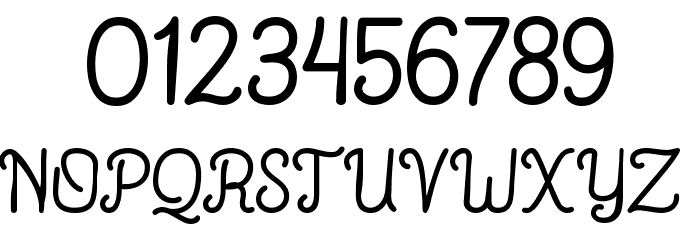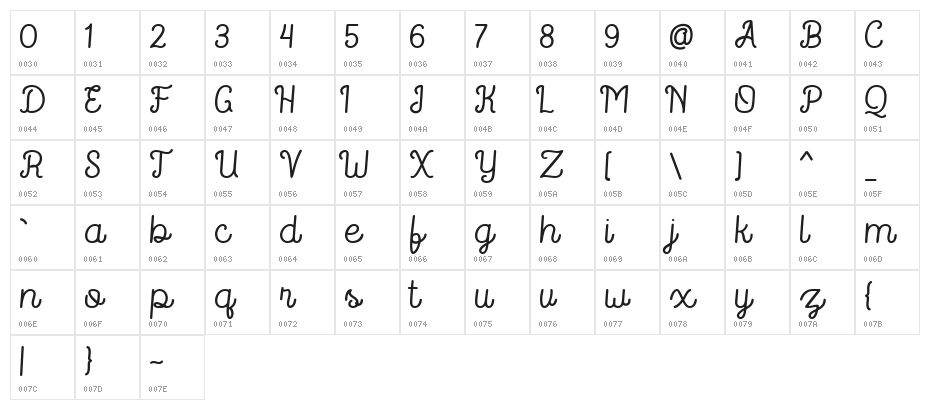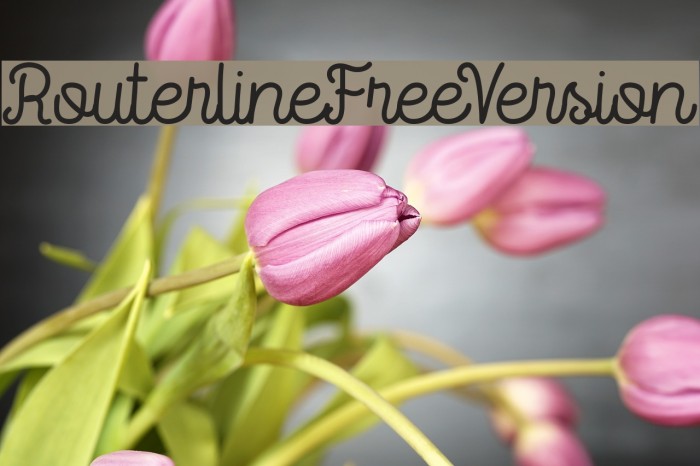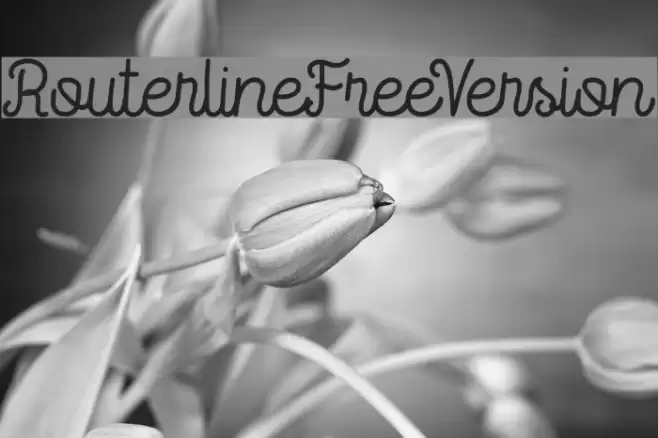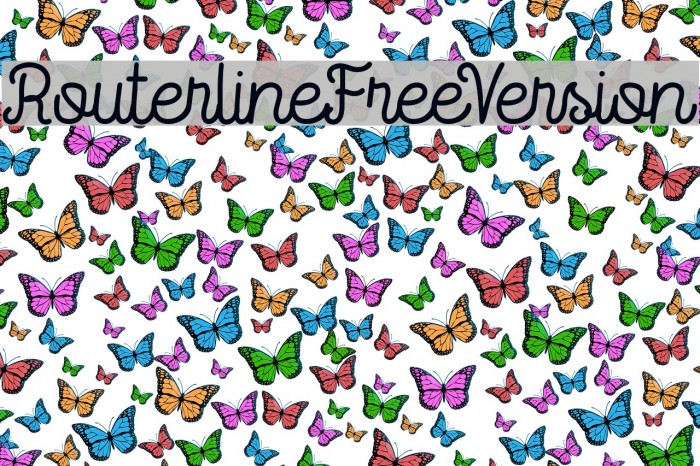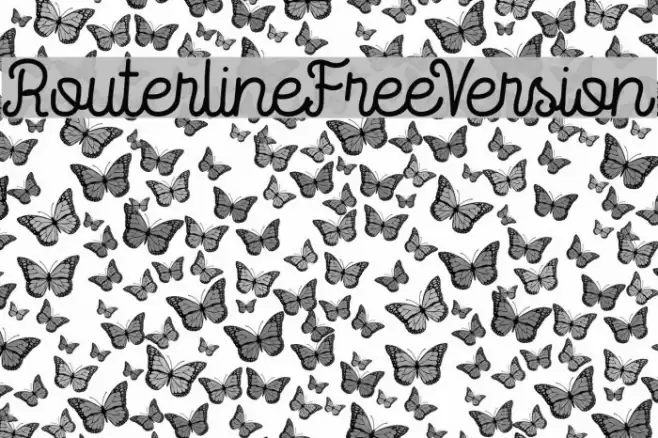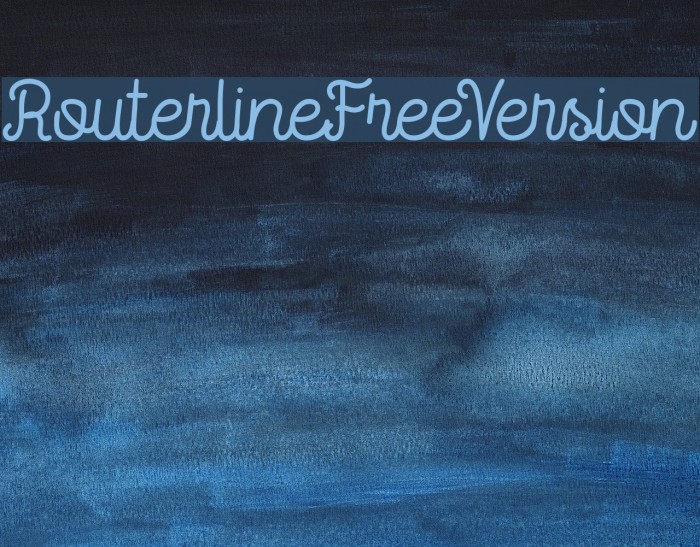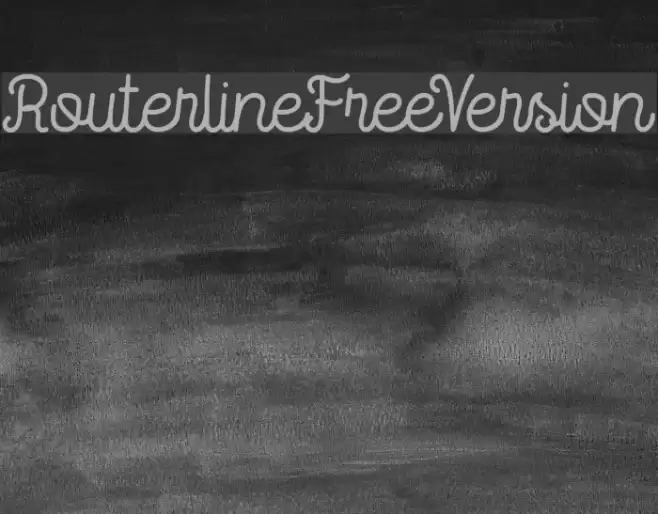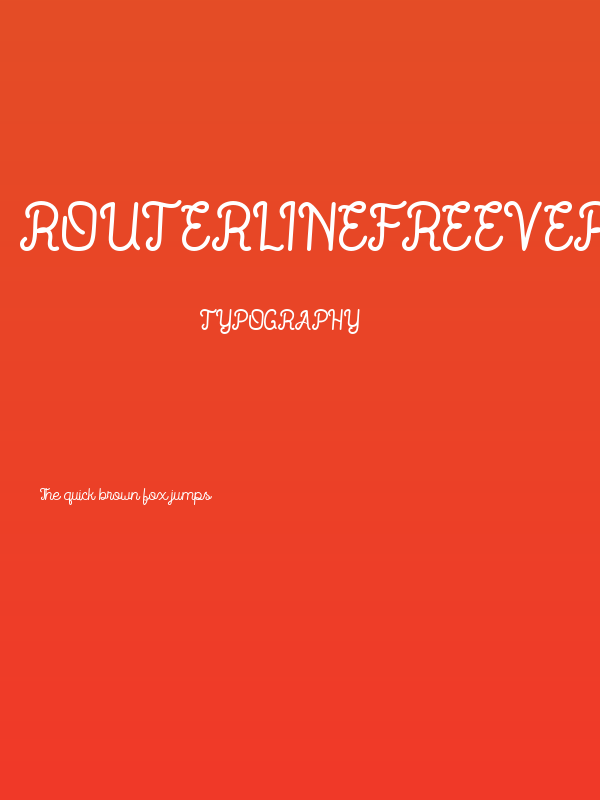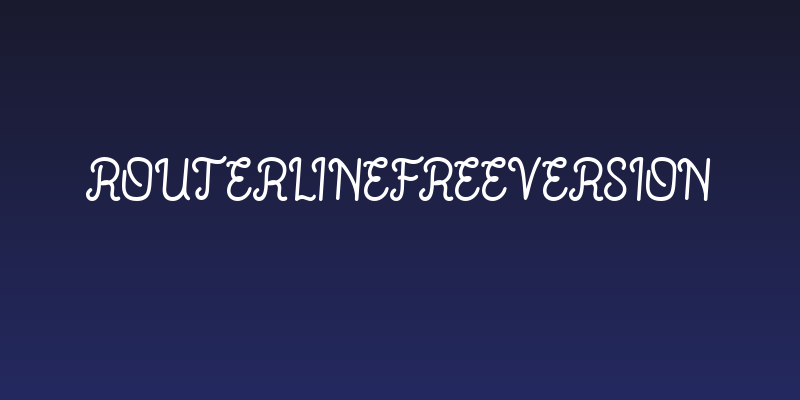
RouterlineFreeVersion Font
RouterlineFreeVersion Description
This font features a playful and whimsical script style with a handwritten appearance. The characters are connected with smooth, flowing lines, giving it a casual and friendly look. The uppercase letters maintain a consistent height, while the lowercase letters have a slight variation in size, adding to the font's charm. The numbers are clear and easy to read, matching the overall style. Special characters are included, maintaining the same playful design. This font is ideal for projects that require a personal touch, such as invitations, greeting cards, or creative branding.
| Overall Style | Playful, Casual |
| Proposed Projects | Ideal for invitations, greeting cards, creative branding, and personal projects. |